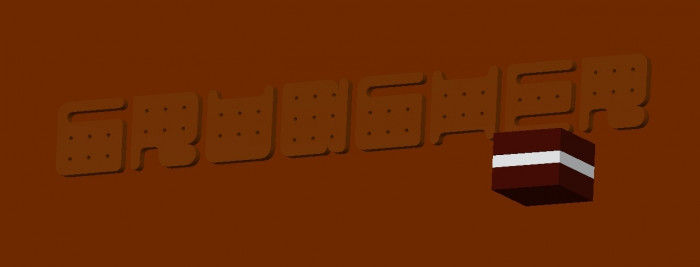
how very charming, indeed. and great sample - it really brings the font to life.
Next step is to go to your oven :) for your handmade font cookies!
@Upixel: Thanks, master, to look at what I do; the oven is at full speed (but best of all is that I'm just starting now to make fonts for an event, and I do not care so much about the spacing or 12 pts readability and some things like that. This challenge has been too funny for me).
So cool. I could just eat it up.
Yum yum. Baked to perfection, and now I'm feeling hungry!
I create a reference! Is name Cruncher